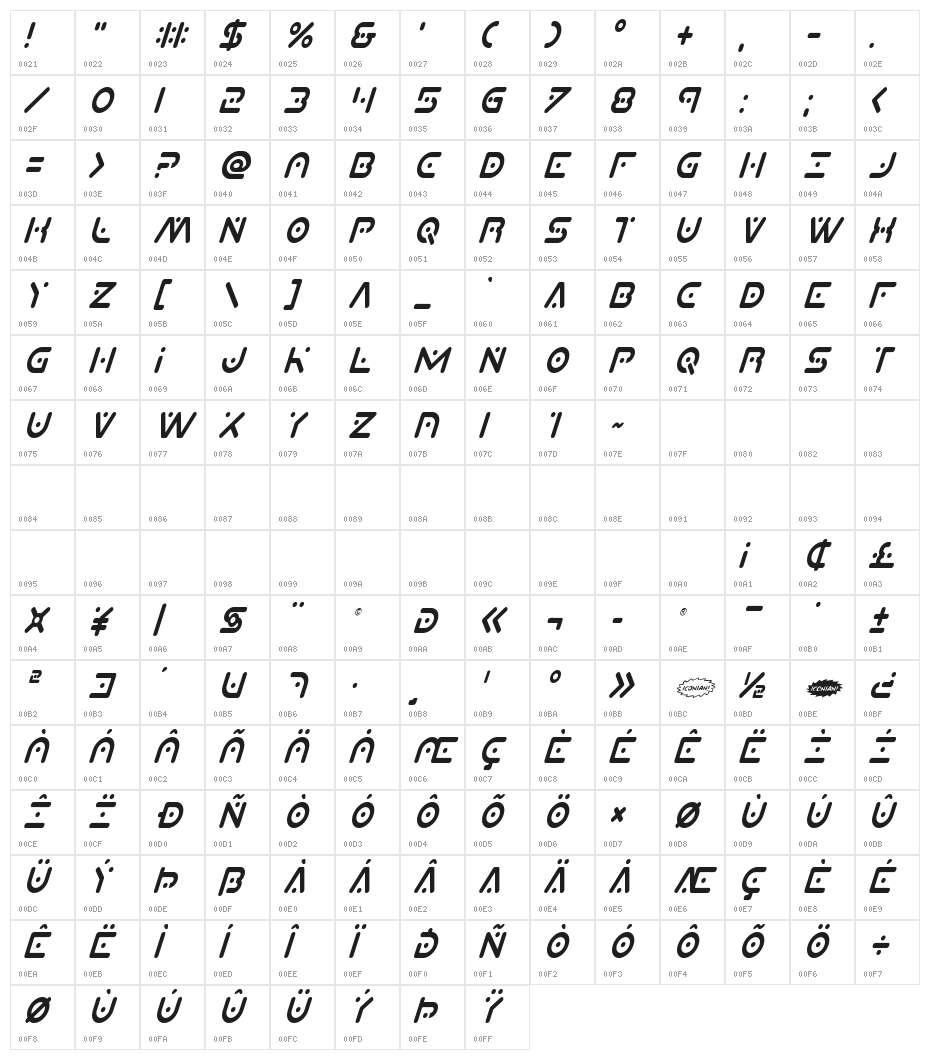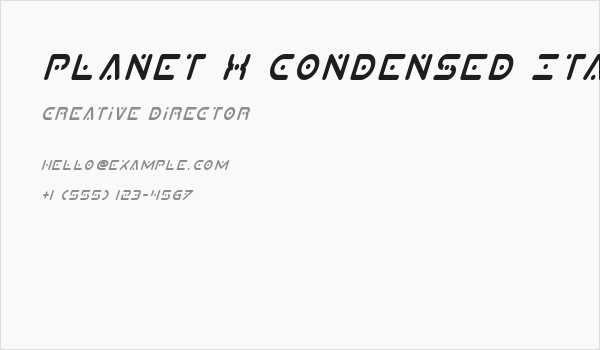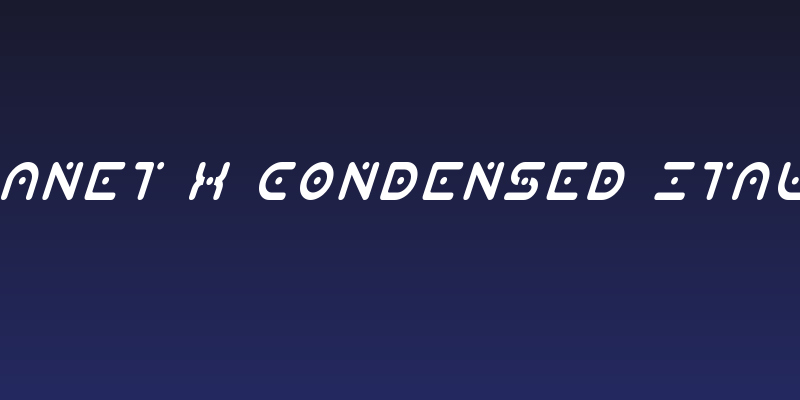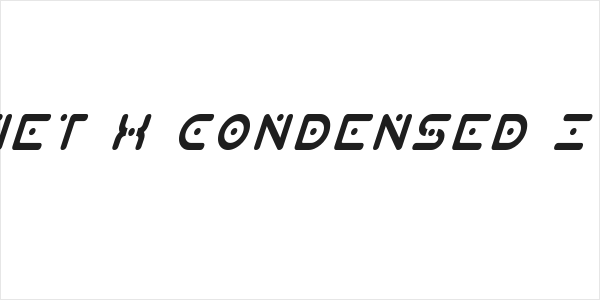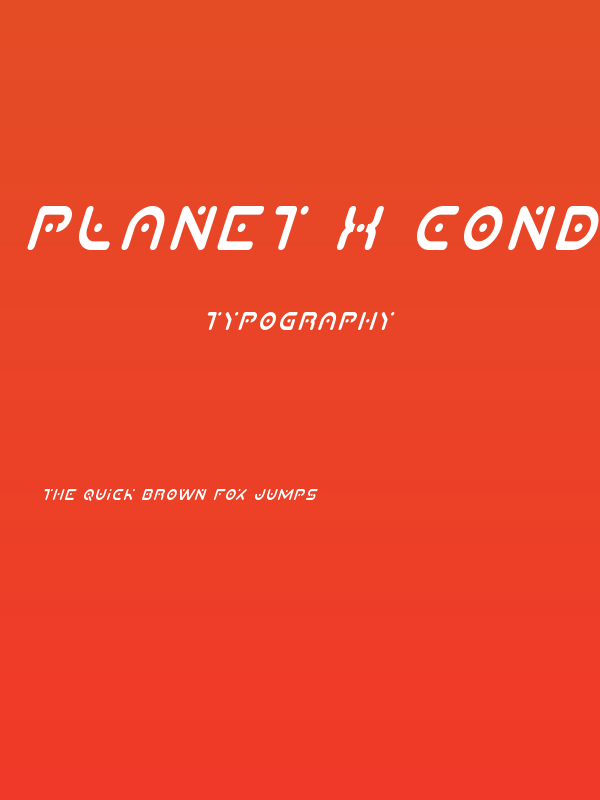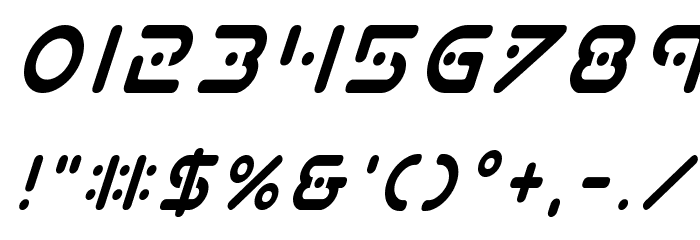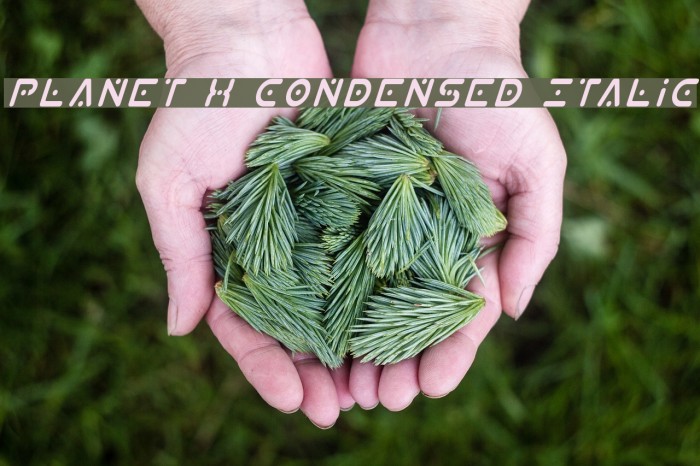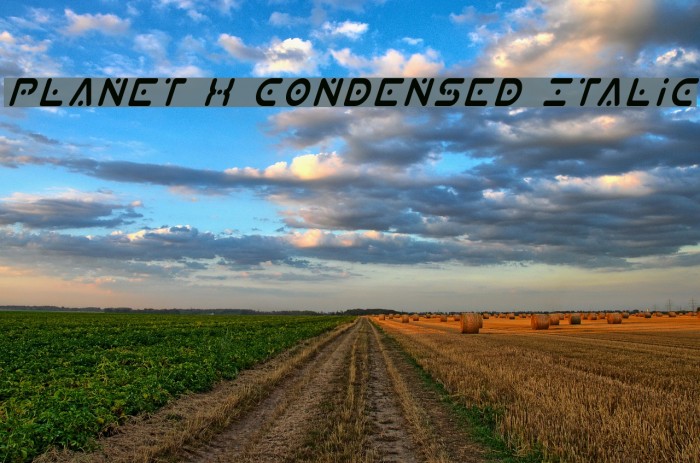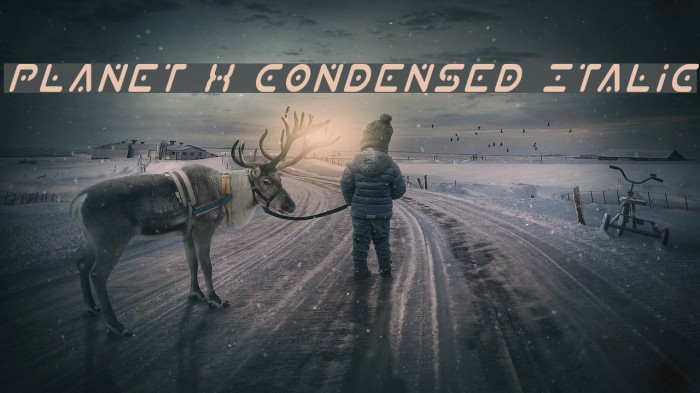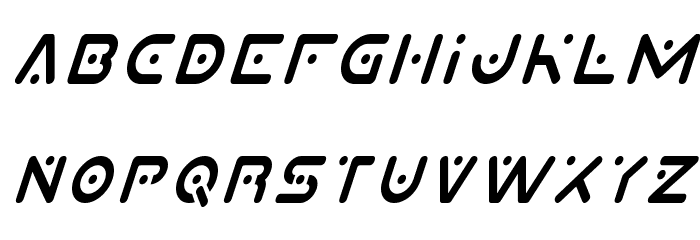
Planet X Condensed Italic Font
This font features a futuristic and sleek design with a condensed and italicized style. The characters are bold and have a distinct geometric appearance, with rounded edges and a consistent stroke width. The uppercase and lowercase letters maintain a uniform height, contributing to a cohesive look. The numbers and special characters are designed to match the overall aesthetic, making them suitable for modern and tech-oriented projects. The font's unique style makes it stand out, while its readability ensures it remains functional.
| Proposed Projects | Ideal for sci-fi themed designs, technology branding, modern posters, and digital interfaces. |